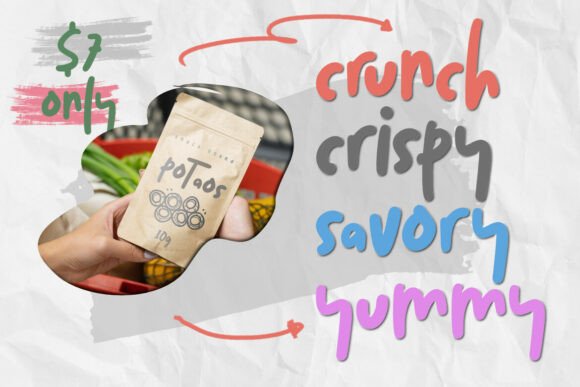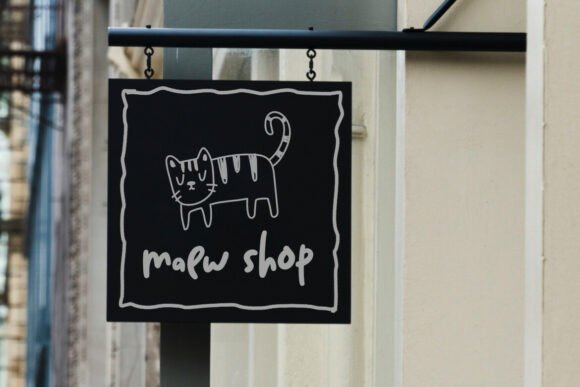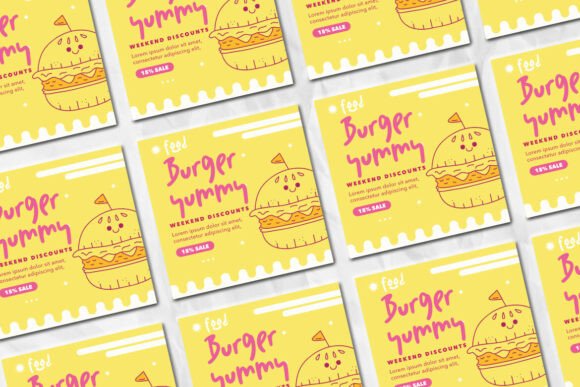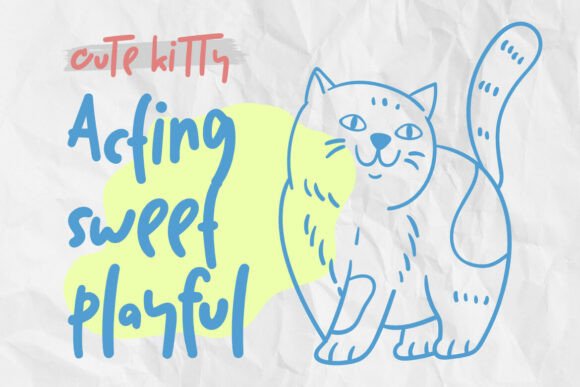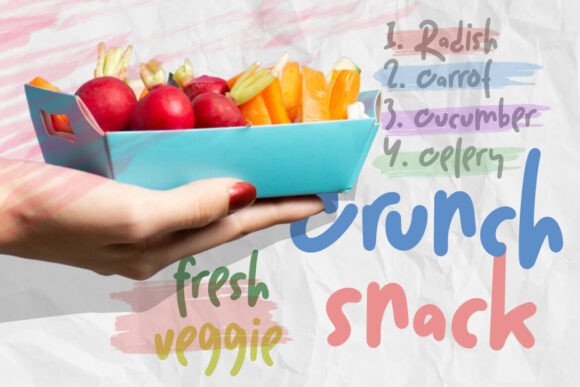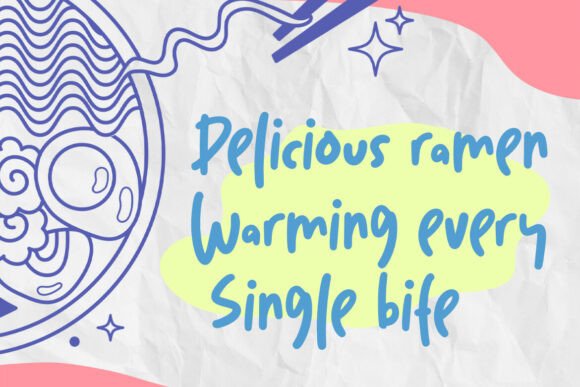
Introduction to Munky Strike Font
Have you ever found yourself doodling in a meeting, on a napkin, or even on a sticky note? The scribbles, the squiggles, and the spontaneous creative strokes that come with it – they’re what make design truly alive. It’s this exact feeling that the Munky Strike Font embodies, bringing a playful and energetic vibe to any project.
As designers, we’re always on the lookout for that perfect design resource that sets our work apart. With Munky Strike Font, you’ll find a high-quality, versatile typeface that’s perfect for any creative project, from social media graphics to print materials. Its transparent background and fun, handwritten feel make it a valuable addition to any designer’s toolkit.
Key Features of Munky Strike Font
- High-quality design for creative projects, ideal for digital artists and designers
- Transparent background, allowing for easy integration with various design elements
- Unique, hand-drawn style with a distressed texture, adding a touch of creativity to any design
Honest Review: Munky Strike Font
I recently had the opportunity to work with the Munky Strike Font, and I must say it’s been a game-changer for my creative projects. This high-quality font is perfect for designers looking to add a unique touch to their designs.
One of the standout features of the Munky Strike Font is its transparent background, which makes it incredibly versatile. I can use it for both web design and print projects without worrying about any background issues.
- ✨ Unique and quirky design style that adds a touch of personality to any project
- ✨ Highly customizable, making it perfect for designers who like to get creative
- ⚠️ Limited font styles available, which may not be suitable for all design projects
- ⚠️ Not ideal for body text, as it can be a bit too bold and attention-grabbing
Overall, I’m thoroughly impressed with the Munky Strike Font. It’s a great addition to any designer’s toolkit, and I’m excited to see how it will elevate my future projects.
Tips for Getting the Most Out of Munky Strike Font
To get the most out of the Munky Strike Font, experiment with different font sizes, colors, and combinations. You can also use the font in conjunction with other design elements, such as images or graphics, to create a unique and eye-catching design.
Common Use Cases for Munky Strike Font
The Munky Strike Font is a versatile design resource that can be used in a variety of creative projects, including logos, typography-based graphics, and presentations. It’s also a great choice for designers who want to create a free download or shareable design resource.